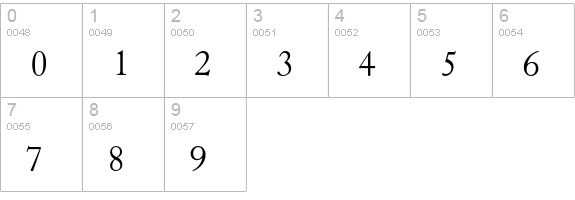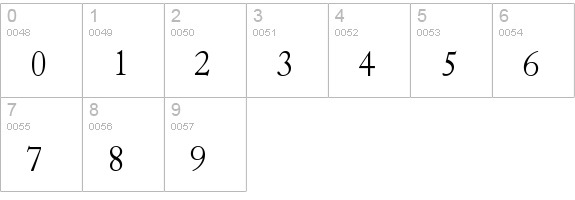
Caslon Old Face Font Details
Caslon Old Face is a timeless serif font that exudes elegance and sophistication. With its classic and graceful design, it is a popular choice for projects that require a touch of traditional charm. The intricate details of this font make it perfect for use in invitations, branding, and editorial design. What sets Caslon Old Face apart is its versatility, making it suitable for both display and body text. Its well-balanced proportions and delicate serifs create a harmonious look that is easy on the eyes. Whether used in print or on screen, Caslon Old Face retains its readability and legibility. One of the best things about Caslon Old Face is that it is freely available to download at FontsMarket.com. This makes it accessible to designers and creatives looking to add a touch of sophistication to their projects without breaking the bank. So go ahead and enhance your designs with the timeless beauty of Caslon Old Face font.